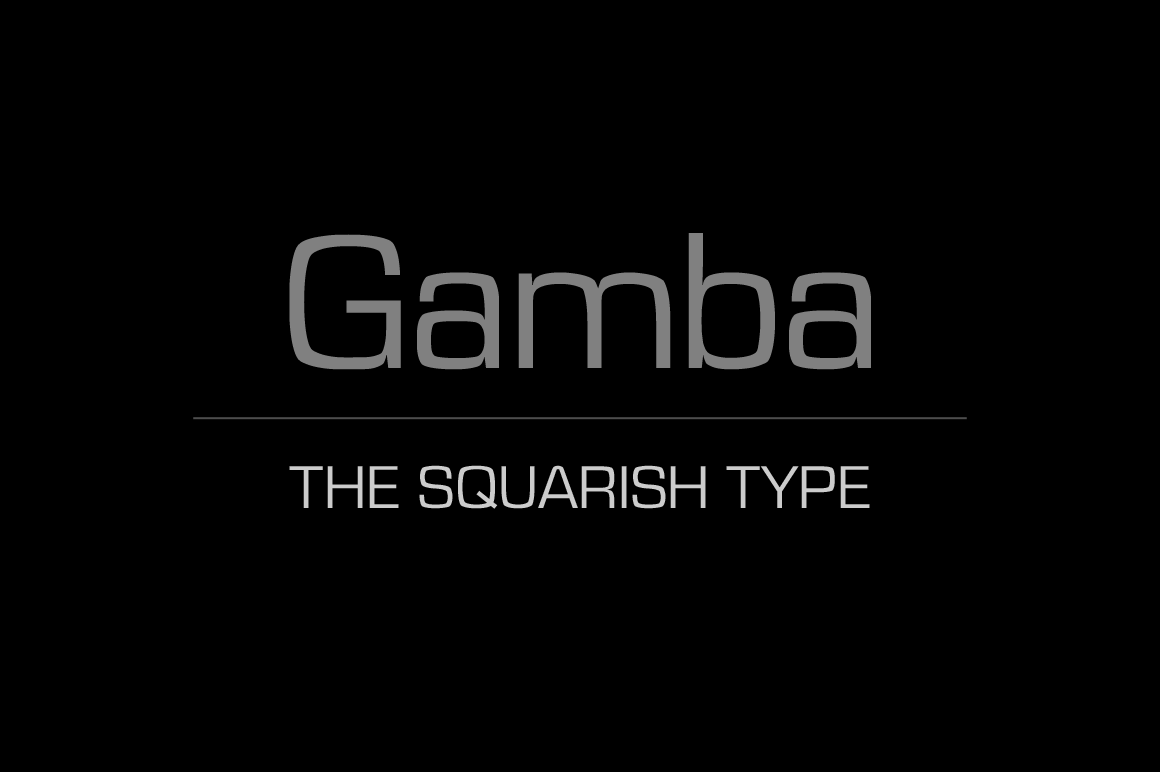
Gamba Font
This squarish type is designed to create strong and clean layouts. Gamba combines futuristic shapes with high legibility, utilitarian design and personality.
The quality of spacing and kerning is ensured by Igino Marini.